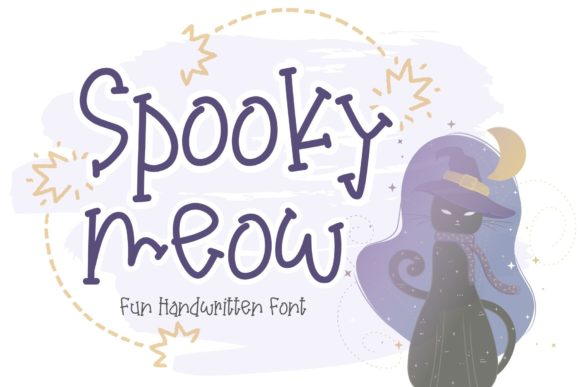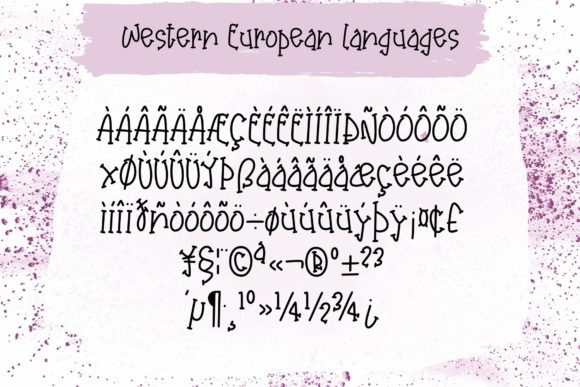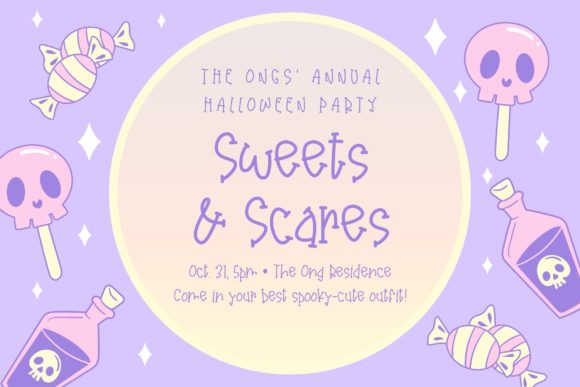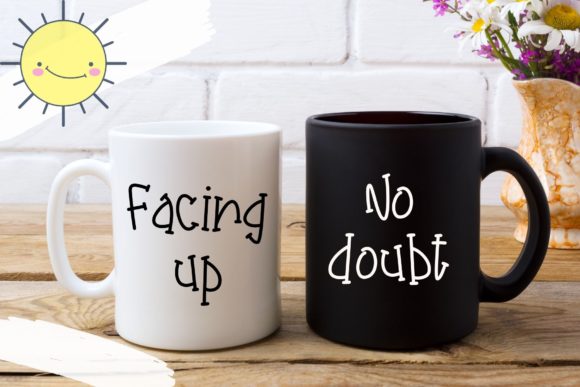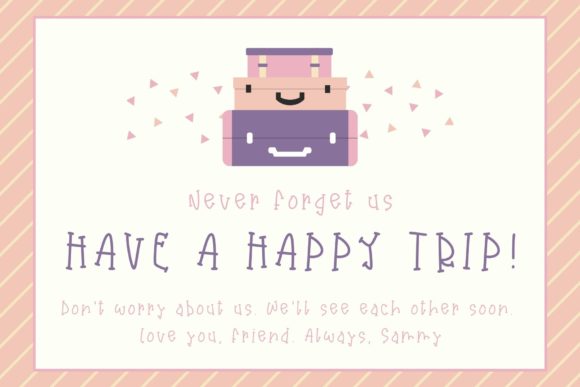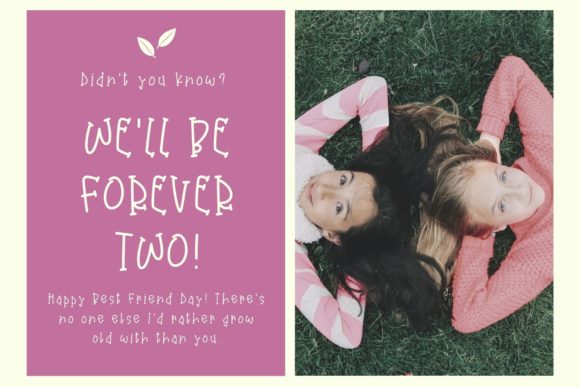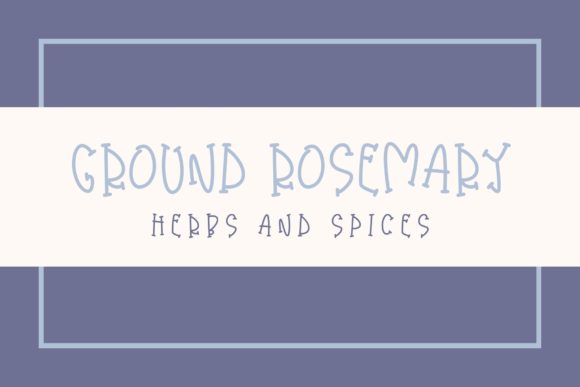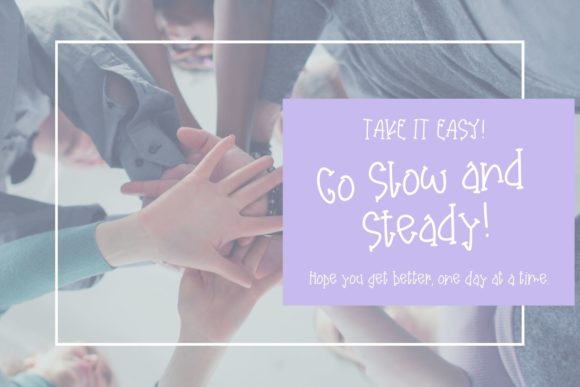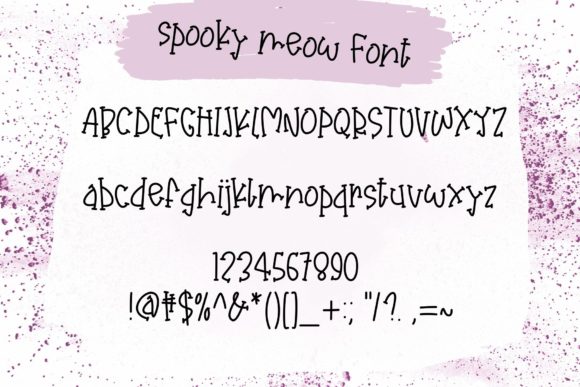
Spooky Meow Font
About Spooky Meow Font
Spooky Meow is a cute and quirky handwritten font. Its friendly feel makes this font versatile, fitting a wide range of design projects. Add it to your favorite creative ideas and notice how it makes them come alive.